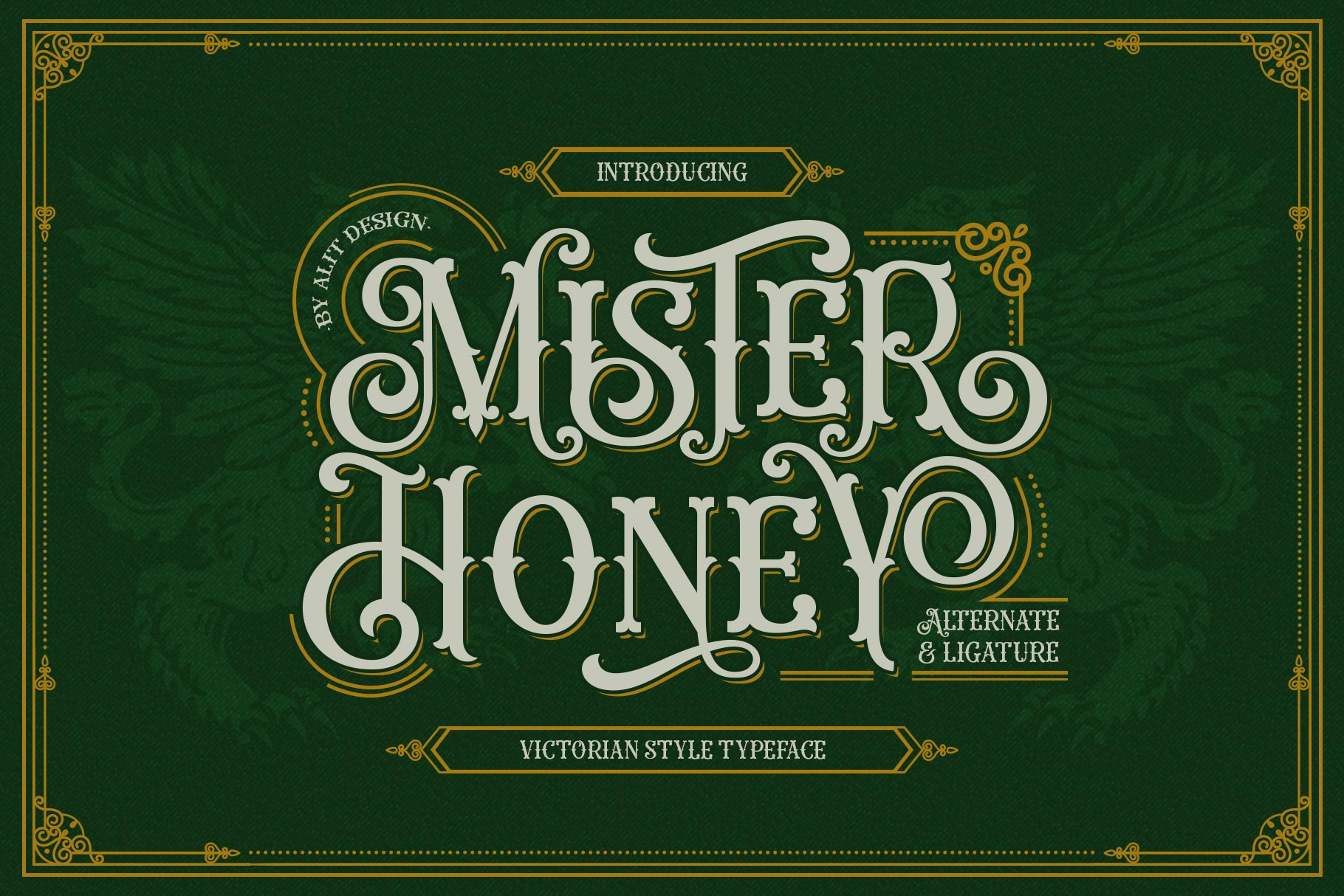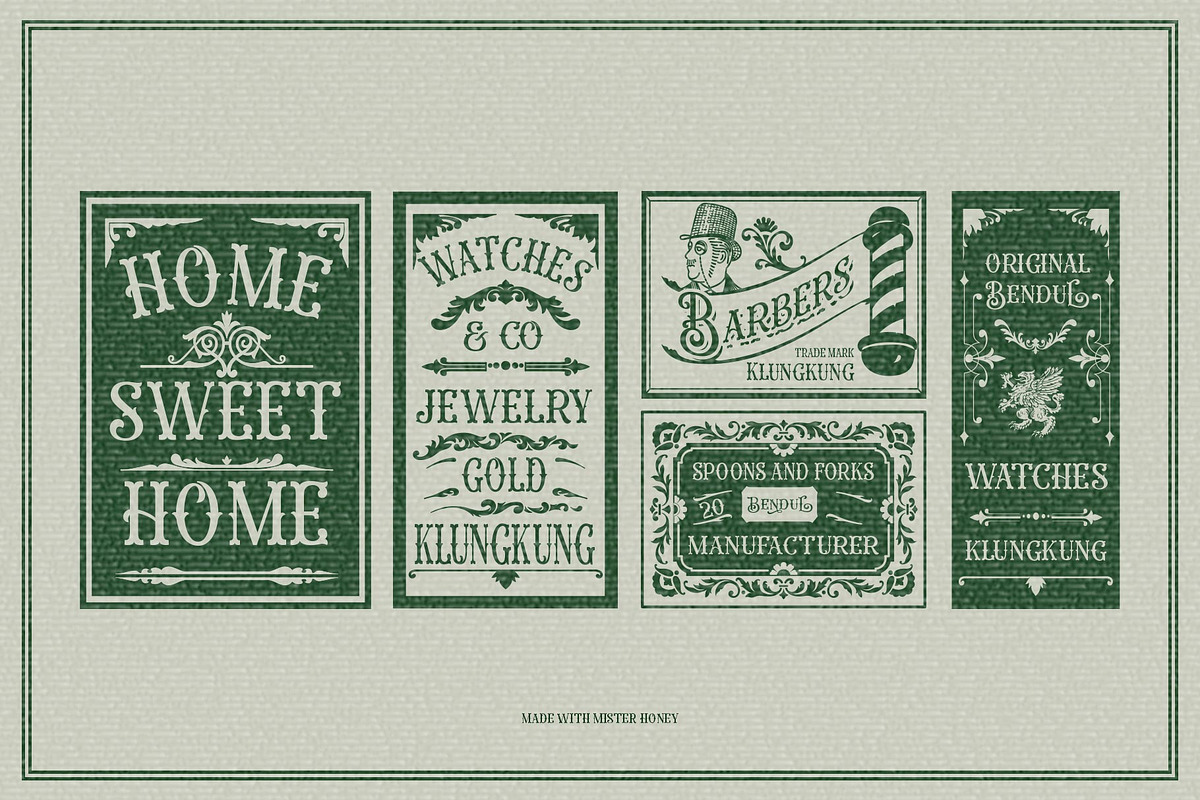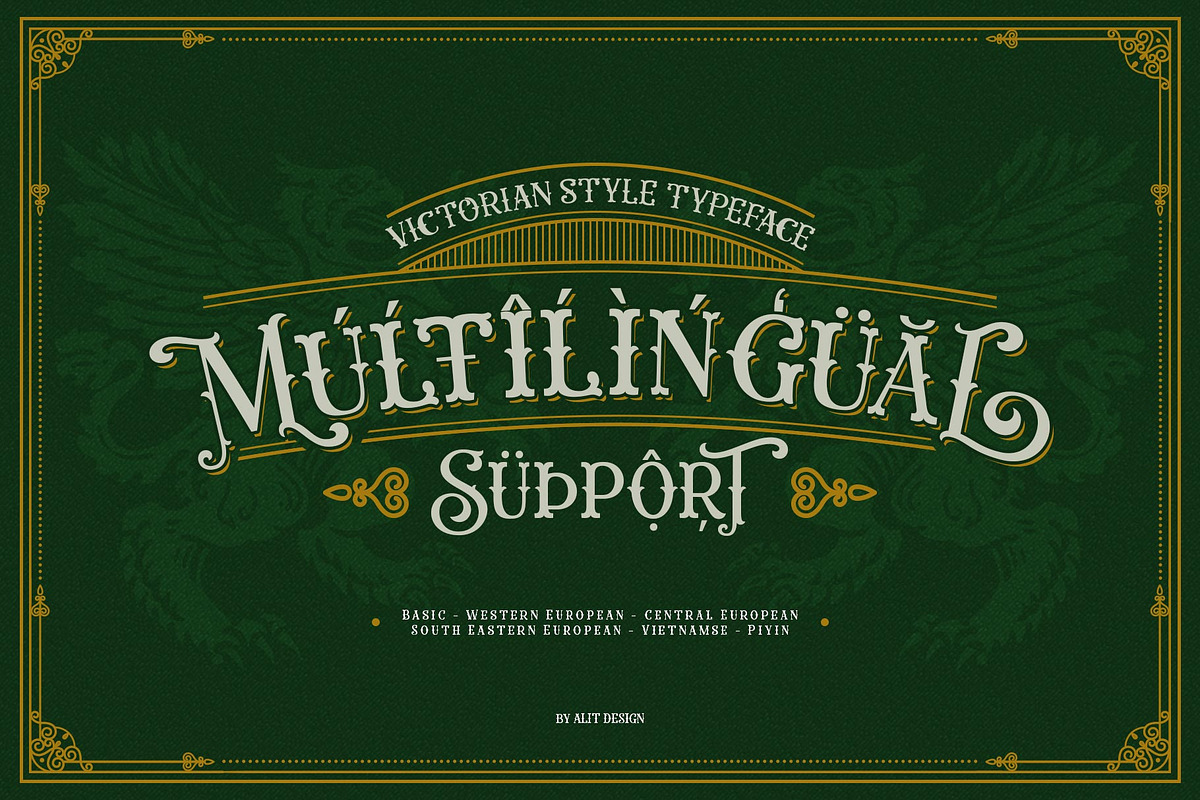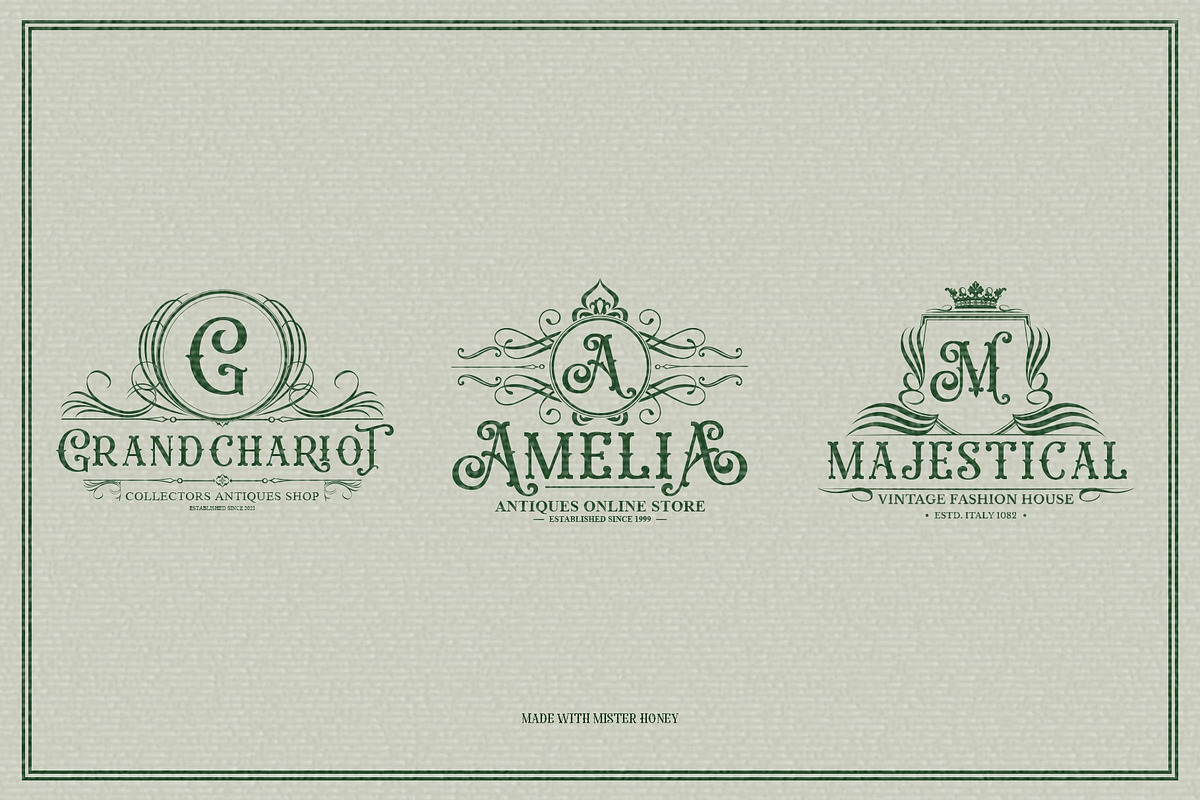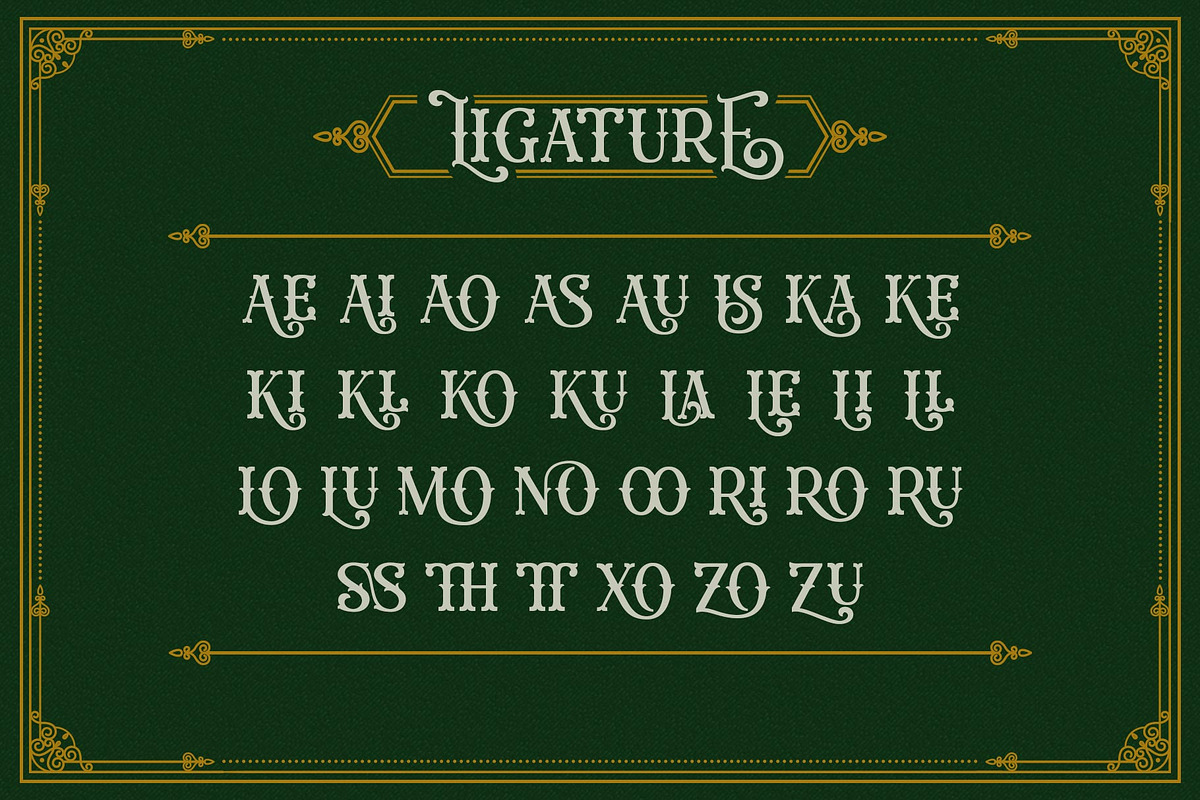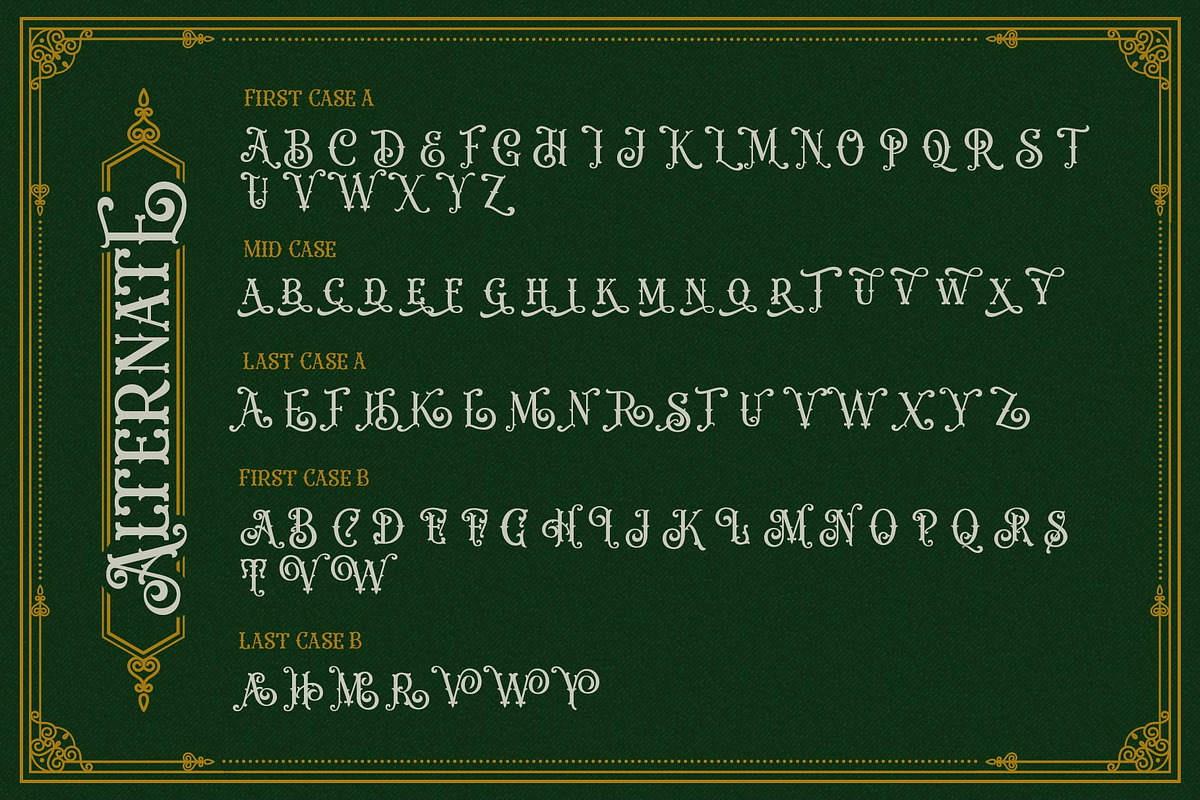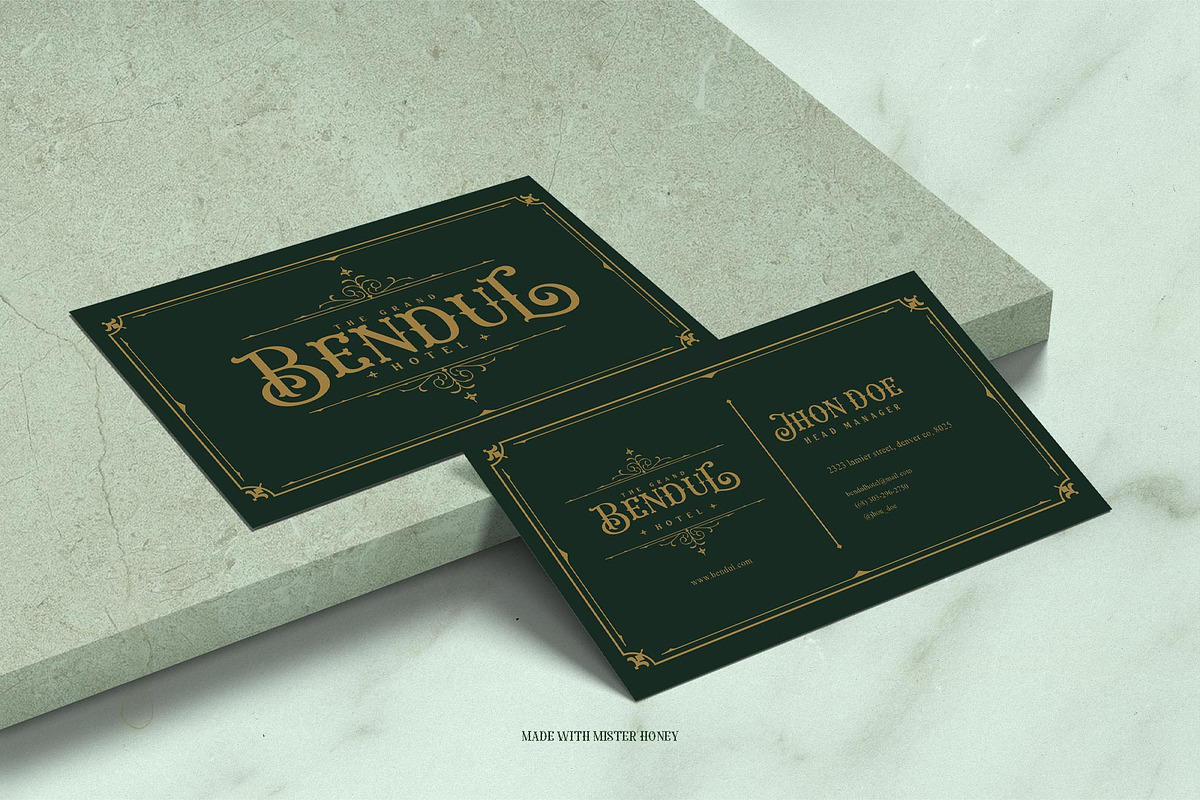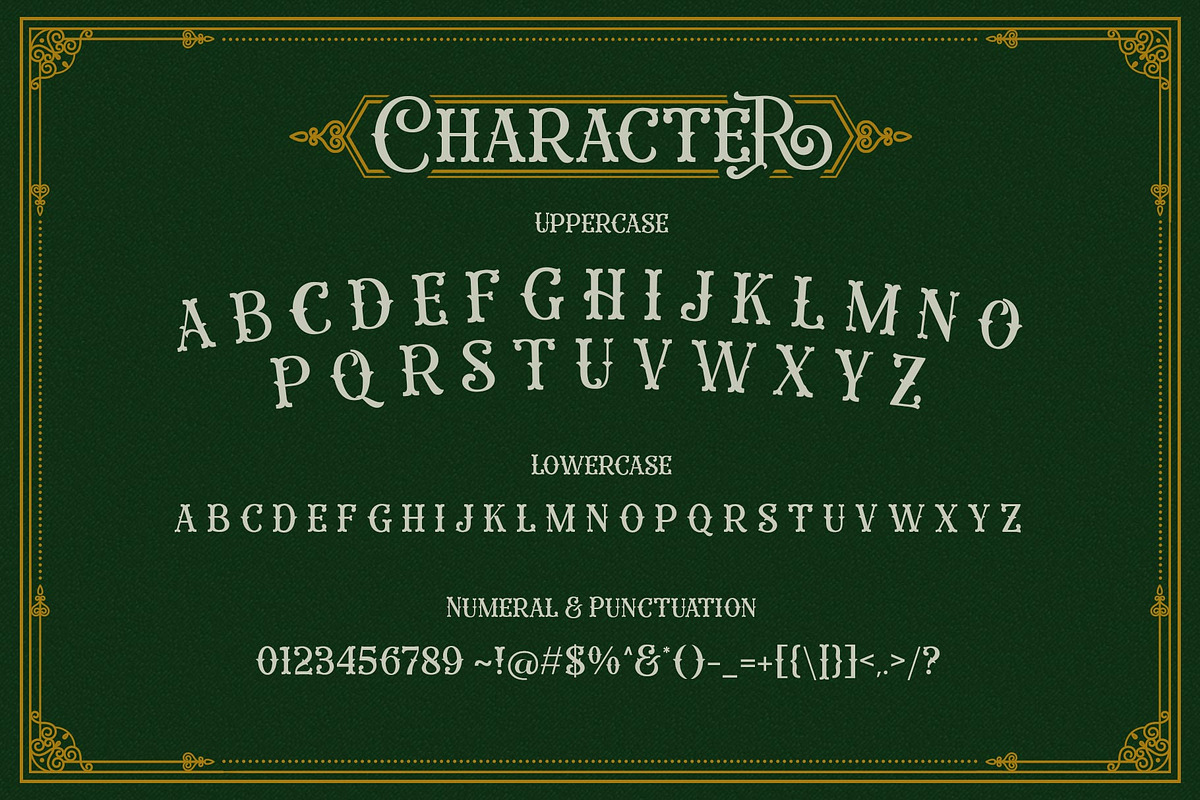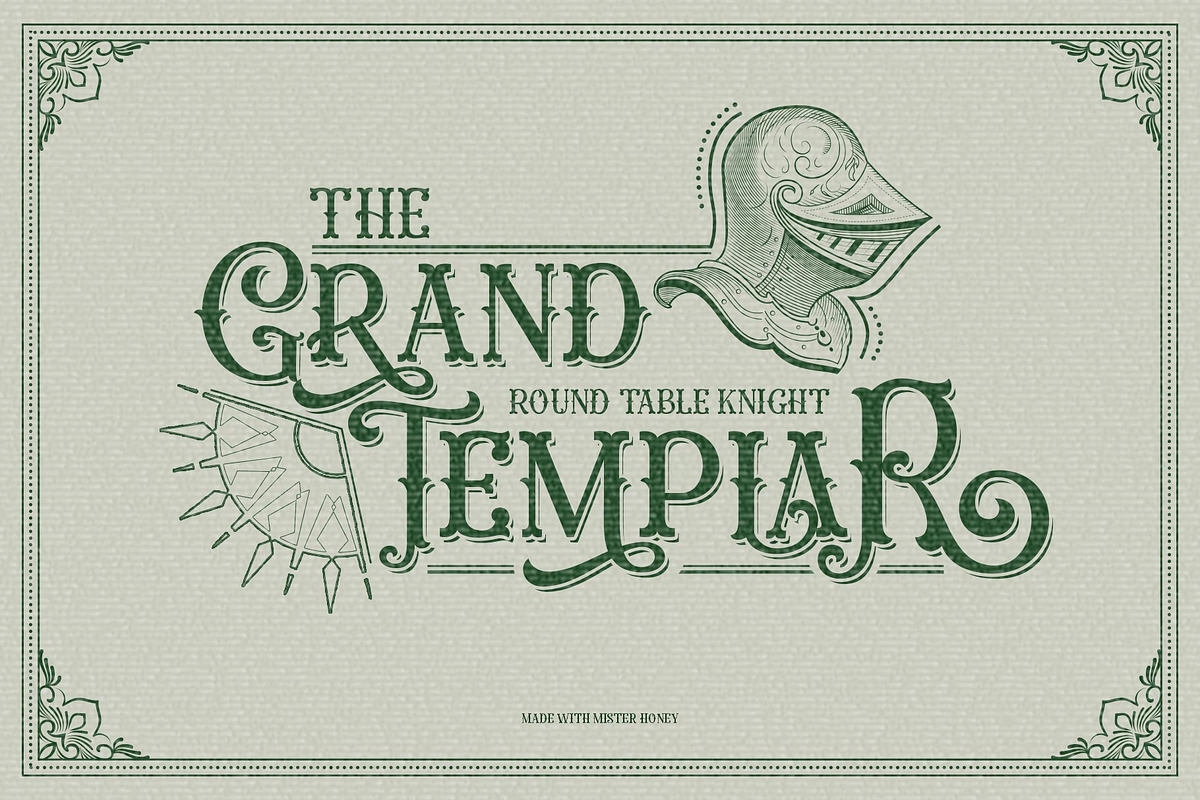
Mister Honey Typeface
Introducing Mister Honey Typeface
Mister Honey Typeface is inspired by the classic victorian font style combined with western style which makes the Mister Honey font look cool and unique. This font is perfect for a bold and vintage Victorian concept design.
Can be used for the design of alcoholic beverage packaging, pomade designs, barbershops and so on with the Victorian classic concept.